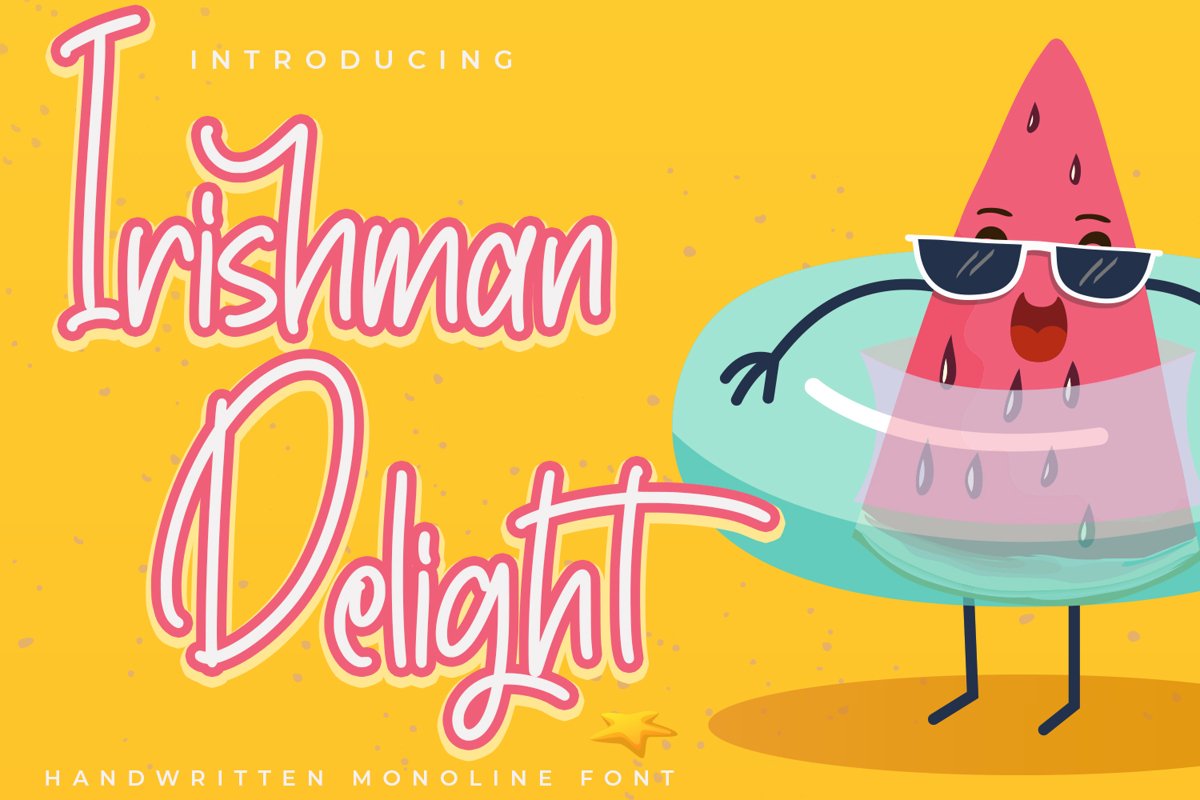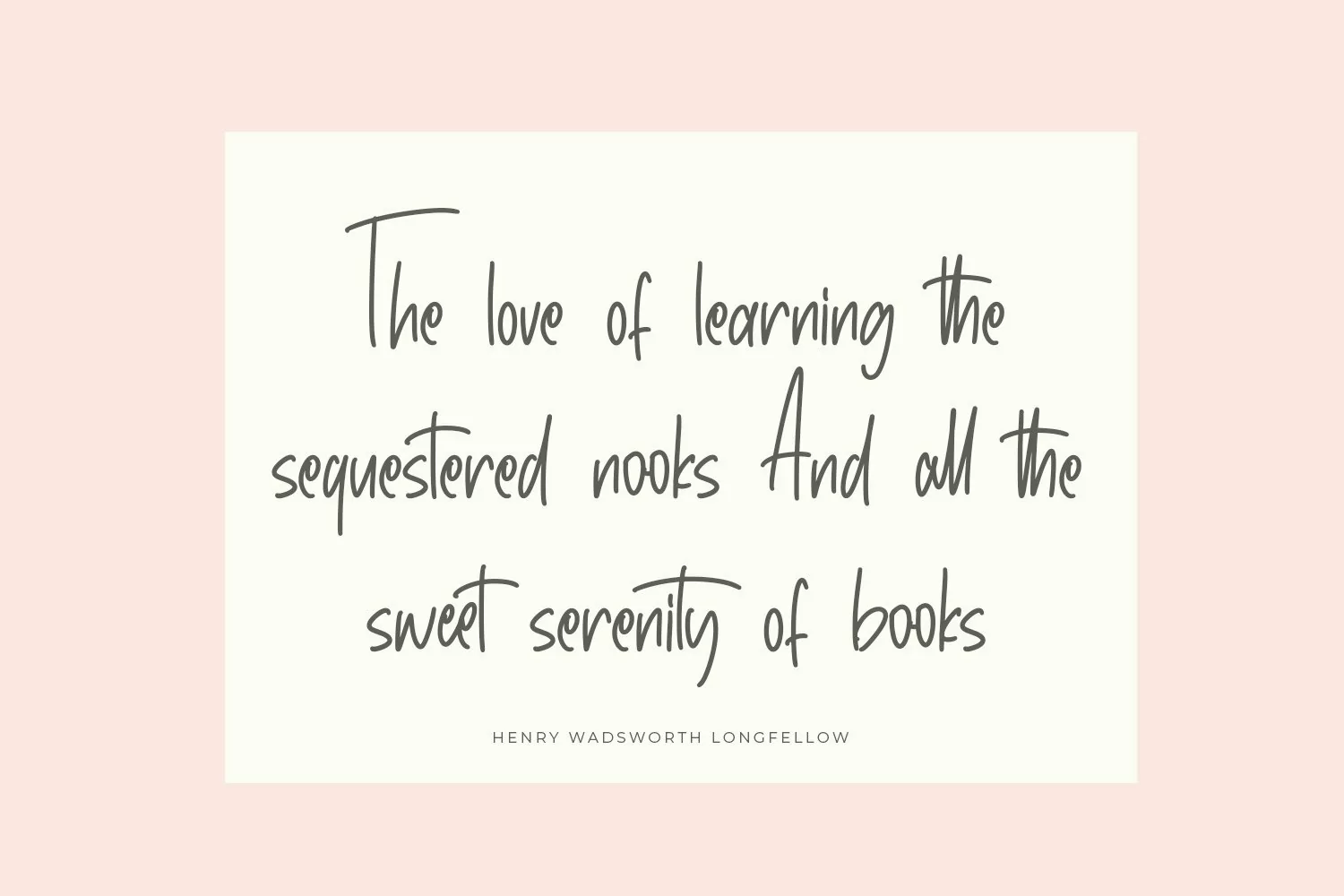
IrishmanDelight - Cute Fonts that contain lowercase, uppercase, symbol, and also support multi language. There’s a lot ligatures in this font. This Font also comes with ligatures, alternates and many more. this font suitable for fashion, branding, catalog and other design what you want.
IrishmanDelight